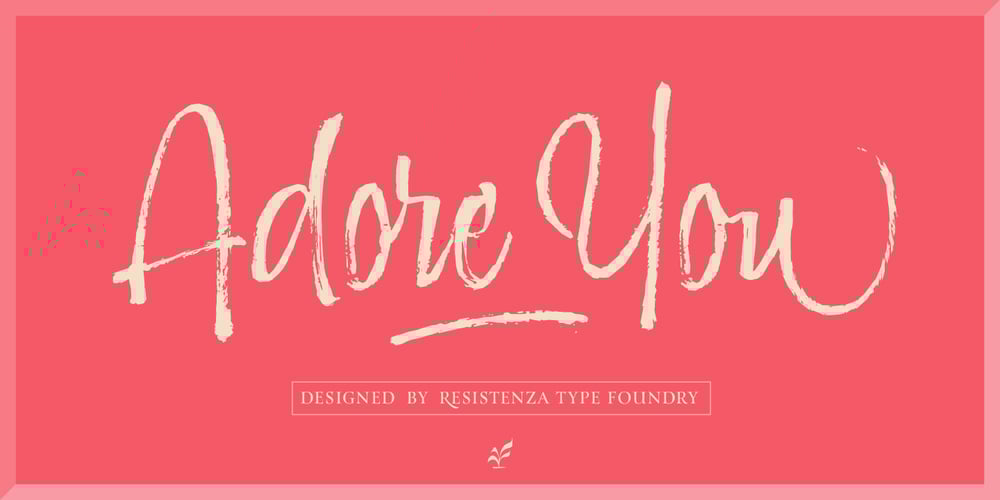
Adore You
Adore You font
Adore You Font Family was designed by Giuseppe Salerno, Paco González and published by Resistenza. Adore You contains 3 styles and family package options. Introducing “Adore You,” a captivating script font meticulously crafted with the strokes of a dry-brush pen, exuding freshness, expressiveness, and playfulness in every character. This font embodies a unique calligraphic style characterised by a lively, bouncy baseline, reminiscent of hand-lettered artistry. The digitisation process has preserved the textured strokes and the authentic feeling of dry ink on paper, adding depth and character to your designs.”Adore You” font family comprises three distinct styles: the regular, slanted, and strokes, a collection of strokes and delightful decorations further enhance its adaptability across various contexts. Whether used in beauty care branding, food packaging, fashion publications, health campaigns, stationery design, or beyond, “Adore You” effortlessly elevates your projects with its irresistible appeal.One of the standout features of “Adore You” is its inclusion of OpenType features, including stylistic alternates and an extensive set of ligatures. These features provide ample opportunities for customisation, allowing you to tailor your text to suit your desired aesthetic and messaging.Whether you’re crafting a brand identity, designing packaging, or creating eye-catching advertisements, “Adore You” lends a touch of sophistication and whimsy to every project. Embrace its charm, let your creativity flow, and watch as your designs come to life with this versatile and enchanting script font.More About Opentype Features: https://bit.ly/opentype-rsz